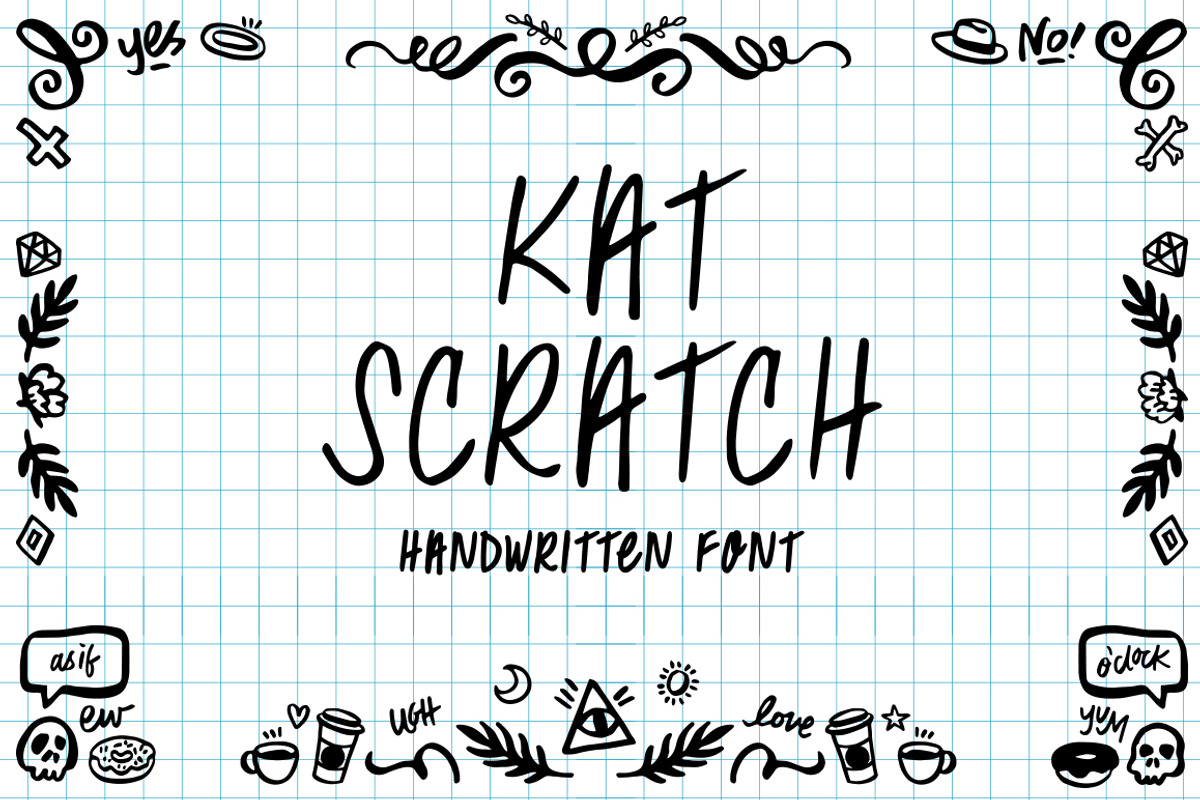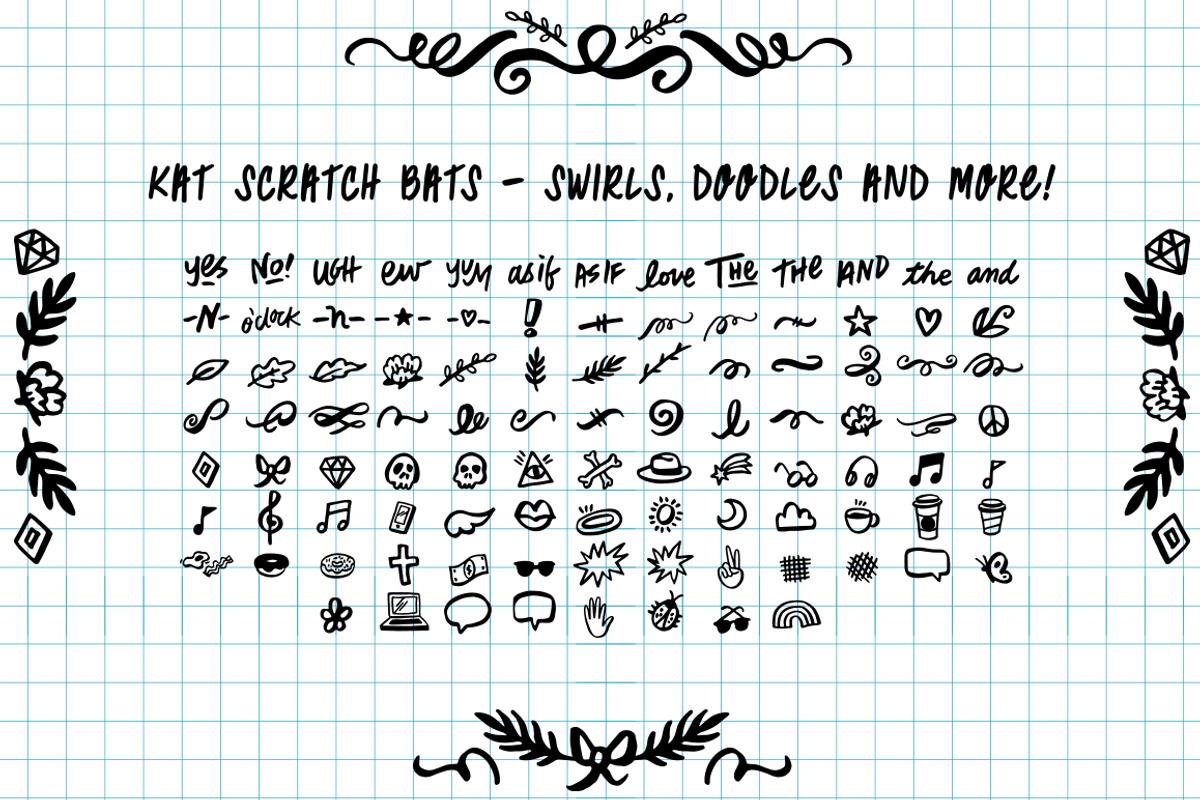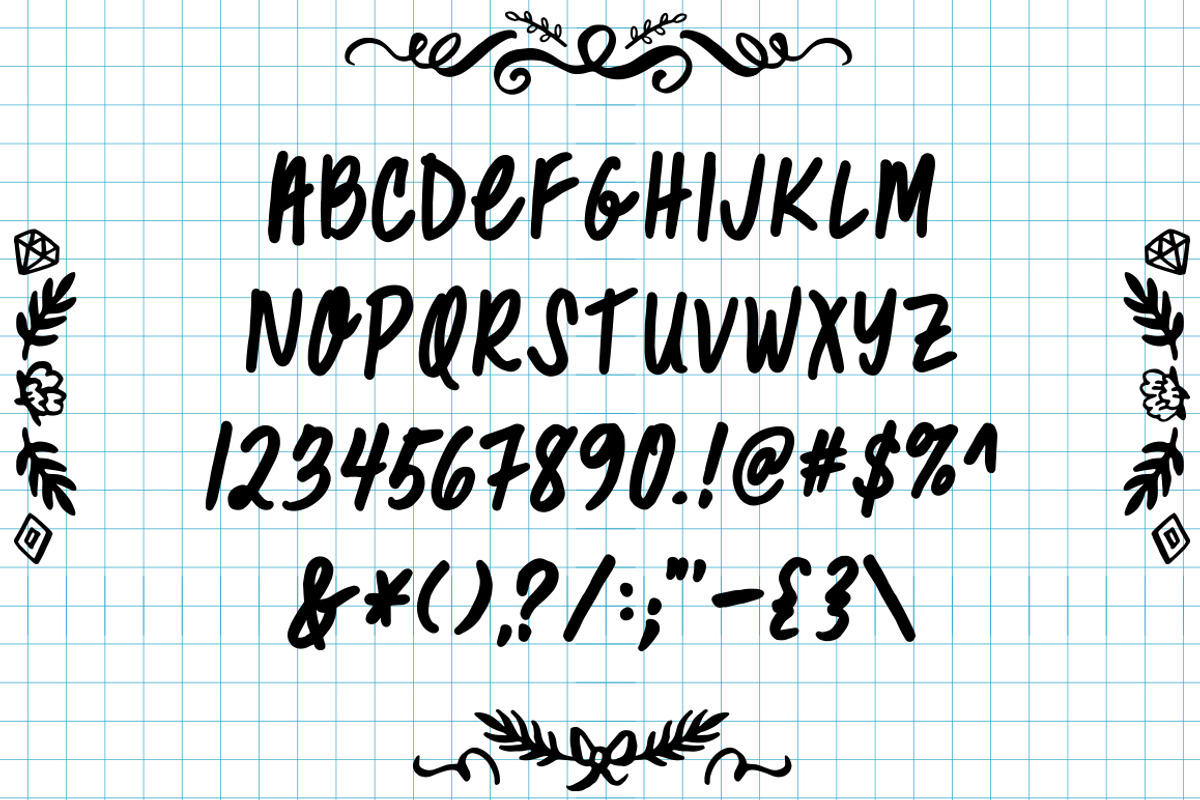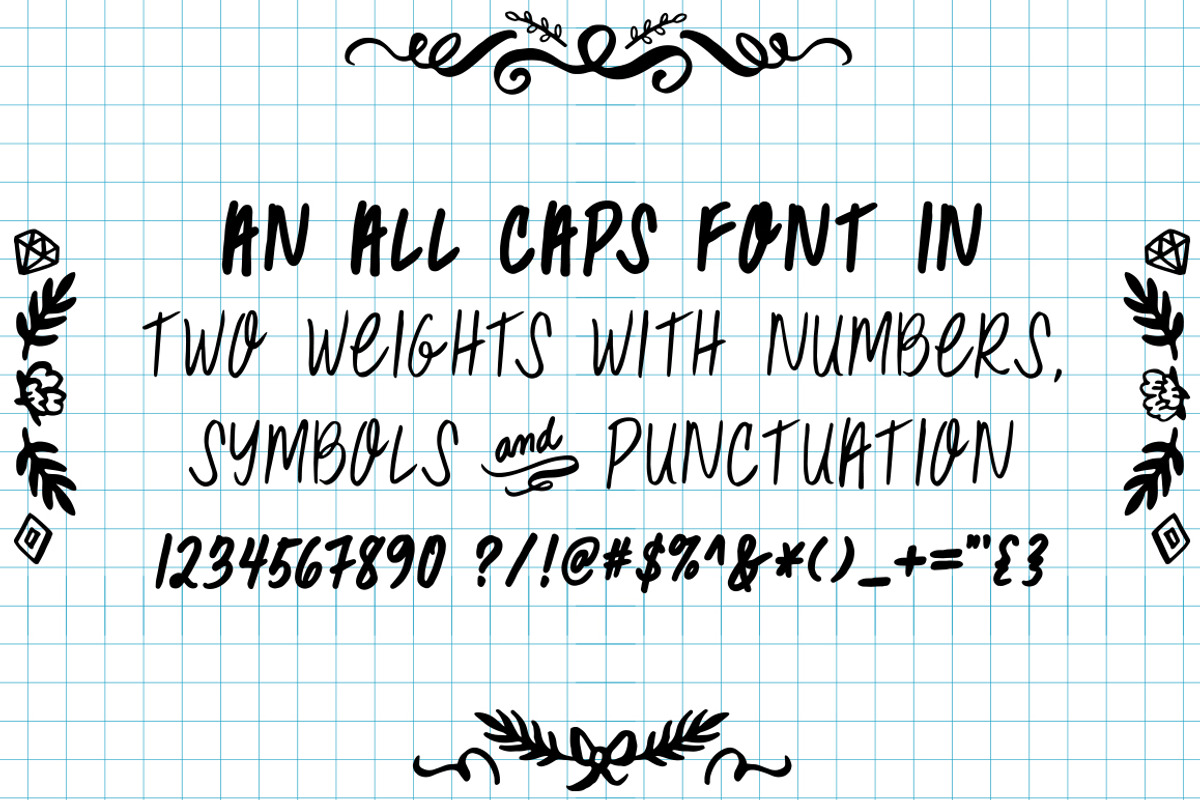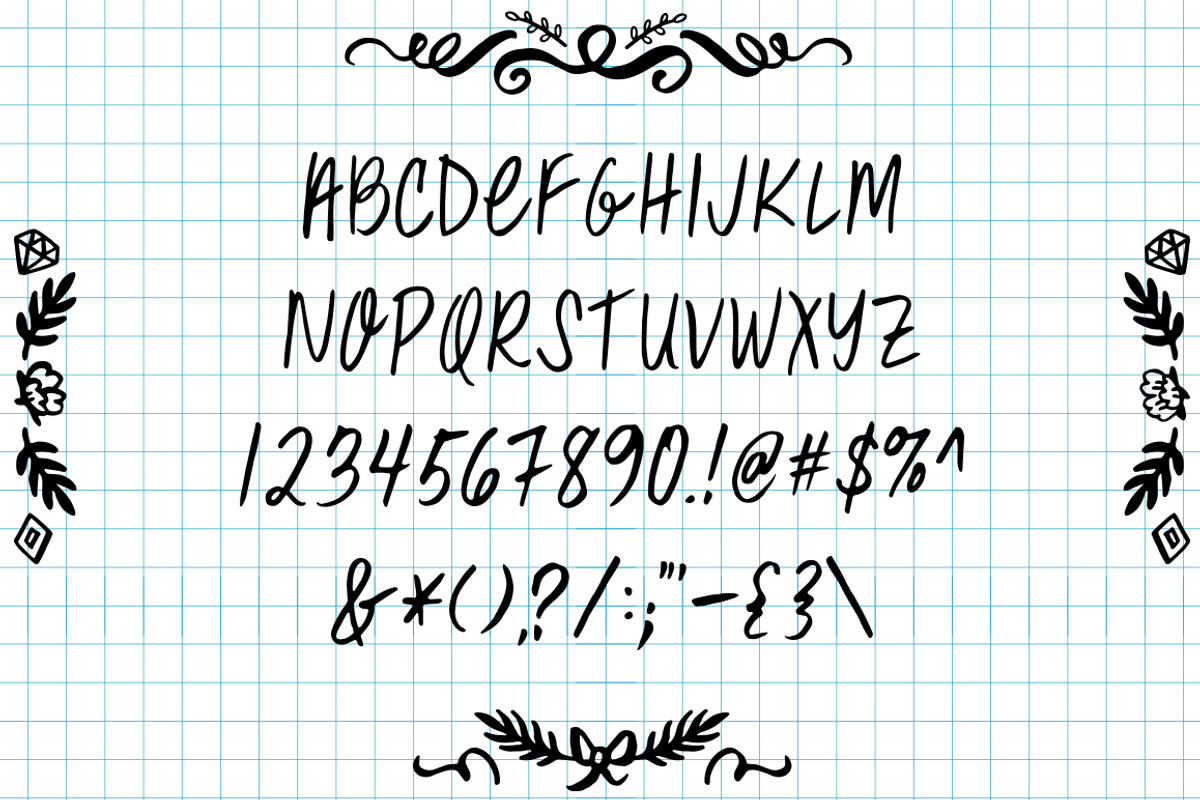
Kat Scratch Font
Kat Scratch Font by Kat Hubbs is a font selected for branding, posters, packaging, typography.
- The download also includes a dingbat font - of swirls, leaves, doodles and other images that you might find in the margins of my notebook.
Why Kat Scratch Font is worth a look
Kat Scratch Font by Kat Hubbs fits naturally into Branding, posters, packaging, typography.